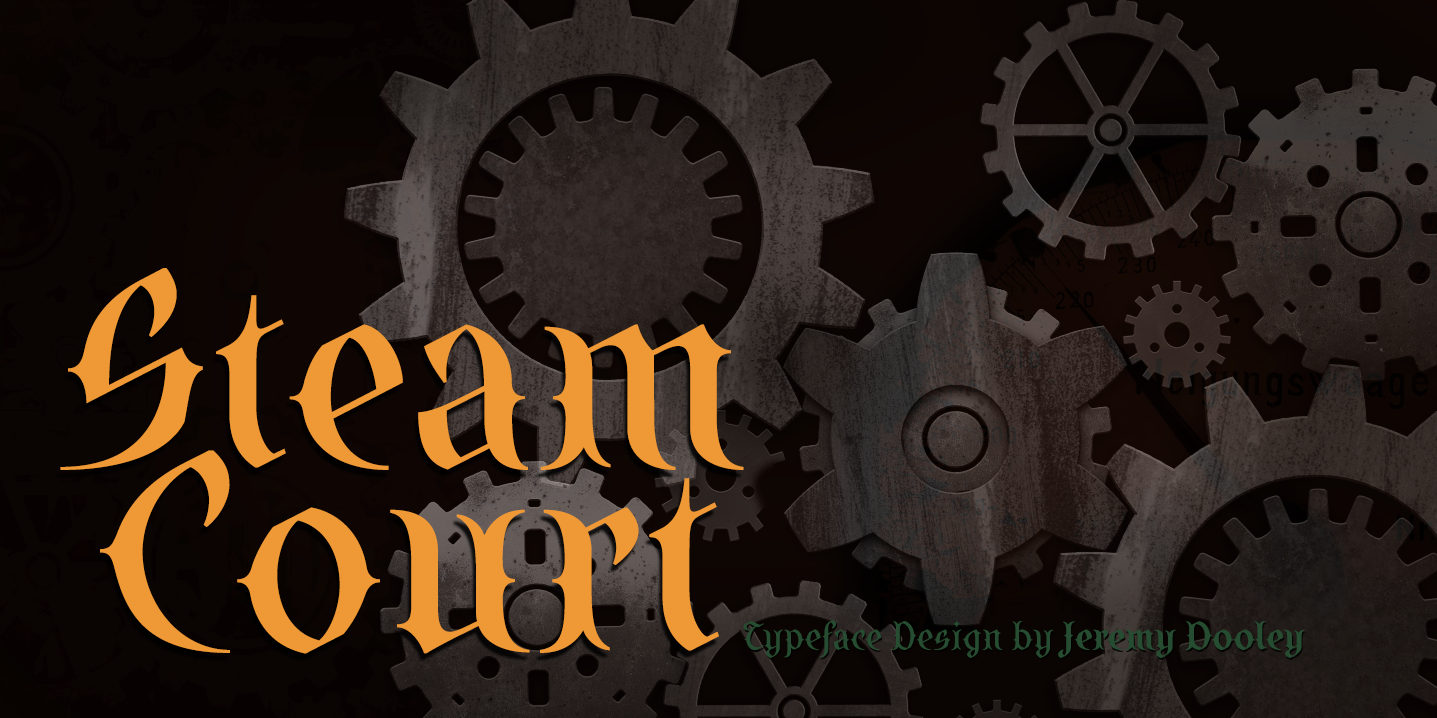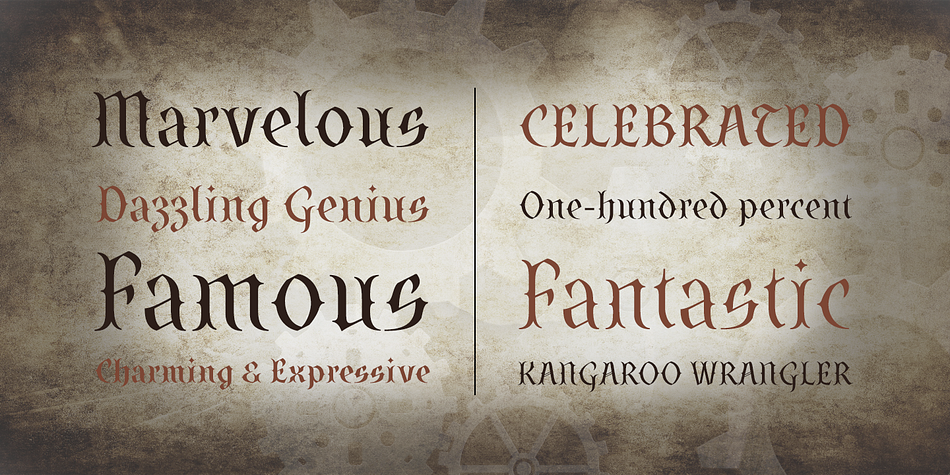
SteamCourt
Designed by Jeremy Dooley, SteamCourt is a blackletter font family. This typeface has five styles and was published by Insigne Design.
Think smart. Think regal. Think SteamCourt, a new font designed specifically for the card game SteamCourt.
A bit of background if you will:
In early 2014, some friends from my college days banded together to form their own game company. Their first launch? A current Kickstarter they named SteamCourt.
I love Kickstarter. It’s a fantastic platform, a great way for individuals to introduce the public to their visions. I’ve started a couple of them myself—both including fonts designed specifically for the projects. The first is Chatype, a font created exclusively for the city of Chattanooga. The second: Cabrito, a font developed as part of the children’s typeface book, The Clothes Letters Wear. It’s wonderful to work with so many others who come alongside to help you vision become reality.
Naturally, hearing of my friends’ project, I contacted them about adding a new face to their venture as well. I gave them carte blanche. They wanted steampunk. It was a great challenge, the result of which is now SteamCourt, an unforgettable display typeface that draws from the mix of Victorian regals, metallic and brass engineering, cogs, clocks and blackletter typography. It evokes a time of skillfully forged metalwork and an era of intrigue and excitement, filled with audacious feats of engineering and innovation and the perilous journeys of the airship.
While influenced by the era of blackletter, SteamCourt is an unmistakeable departure from the style of two centuries past, yet it still shines in its given display roles with a distinct regal twist. The serifs are asymmetrical, yet the characters are all specially and delicately balanced. It’s an eye-catching alternative to blackletter with modern steampunk touches.
The games signature typeface has sizable language support on top of 90 alternate characters as well. In addition to a generous number contextual alternates, SteamCourt features stylistic alternates that allow for buyers to customize its visual appearance for their preferences, helping to make it a superior option for packaging, branding and enormous typesetting logotypes as well as shorter textual content.
Check out the game, but grab the font, too, to be a part of that crib created as a companion for the new game in court. It’ll be the ace up your sleeve for many rounds of design ahead.